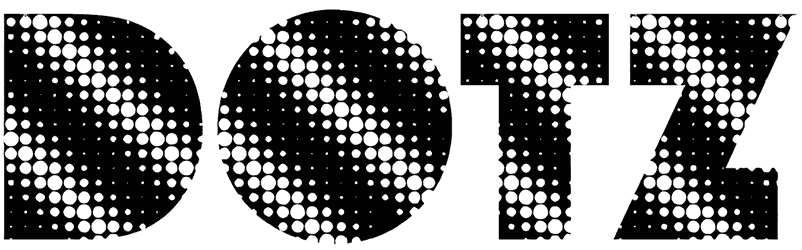
Dotz Font
Dotz has a different look and feel than other options in your collection and can add various colors to your content. This decorative font is an attractive combination of bright dots and shadows that can create an exciting digital atmosphere in your designs.
Although the lack of lowercase letters and numbers makes no problem in this disco font, the combination of the two styles it offers for capital letters is handy for headlines, posters, art albums, and merchandise.